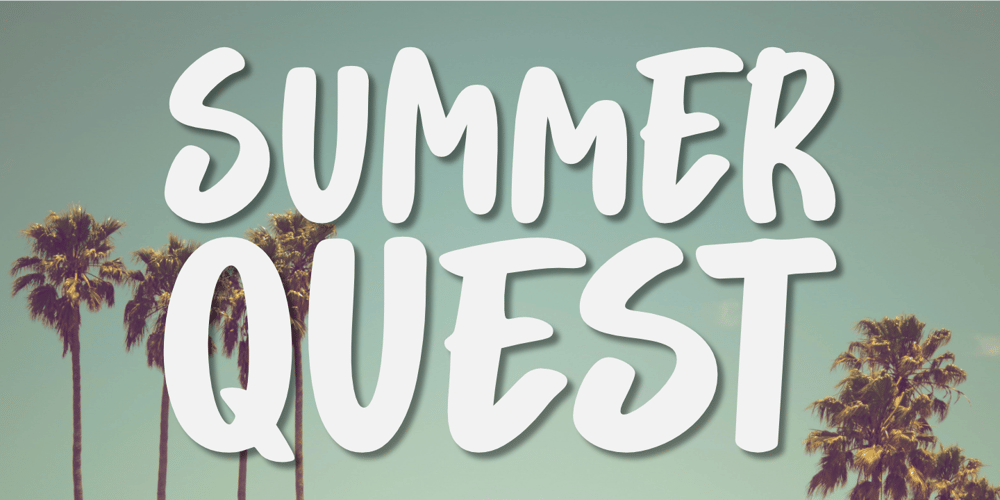
Summer Quest
Summer Quest font
Summer Quest Font Family was designed by Aldy Sidik and published by Epiclinez. Summer Quest contains 1 styles and family package options. Remember that feeling of summer bliss? We designed a font with that same feeling in mind. Get your cool, refreshing look with Summer Quest. It’s a bold, yet trendy font that can make your designs pop. Whether it’s a poster, a greeting card, or a logo, this font can give you the right taste of summer for your product or service.So what’s included : Basic Latin Uppercase and Lowercase Numbers, symbols, and punctuations Multilingual Support. Simple Installations Works on PC & Mac